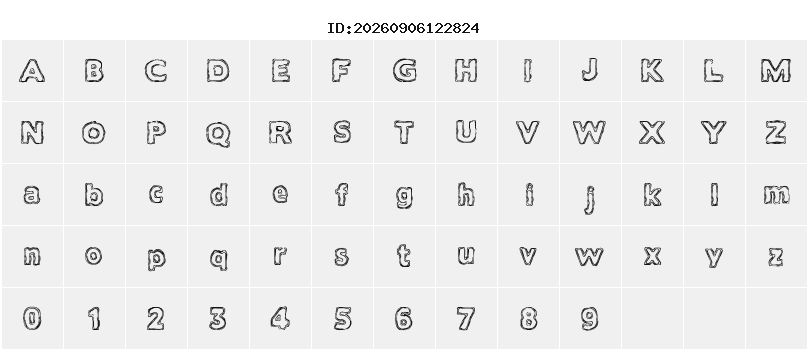
Tarkista tiedot Preview
• Font Name: Tarkista tiedot
• Full Font Name: Tarkista tiedot
• Version: Version 1.00 December 25, 2009, initial release
About Tarkista tiedot.ttf
Tarkista tiedot.ttf is a modern, elegant sans-serif font designed for ultimate readability and visual harmony. Perfect for branding, headlines, web design, and print materials.